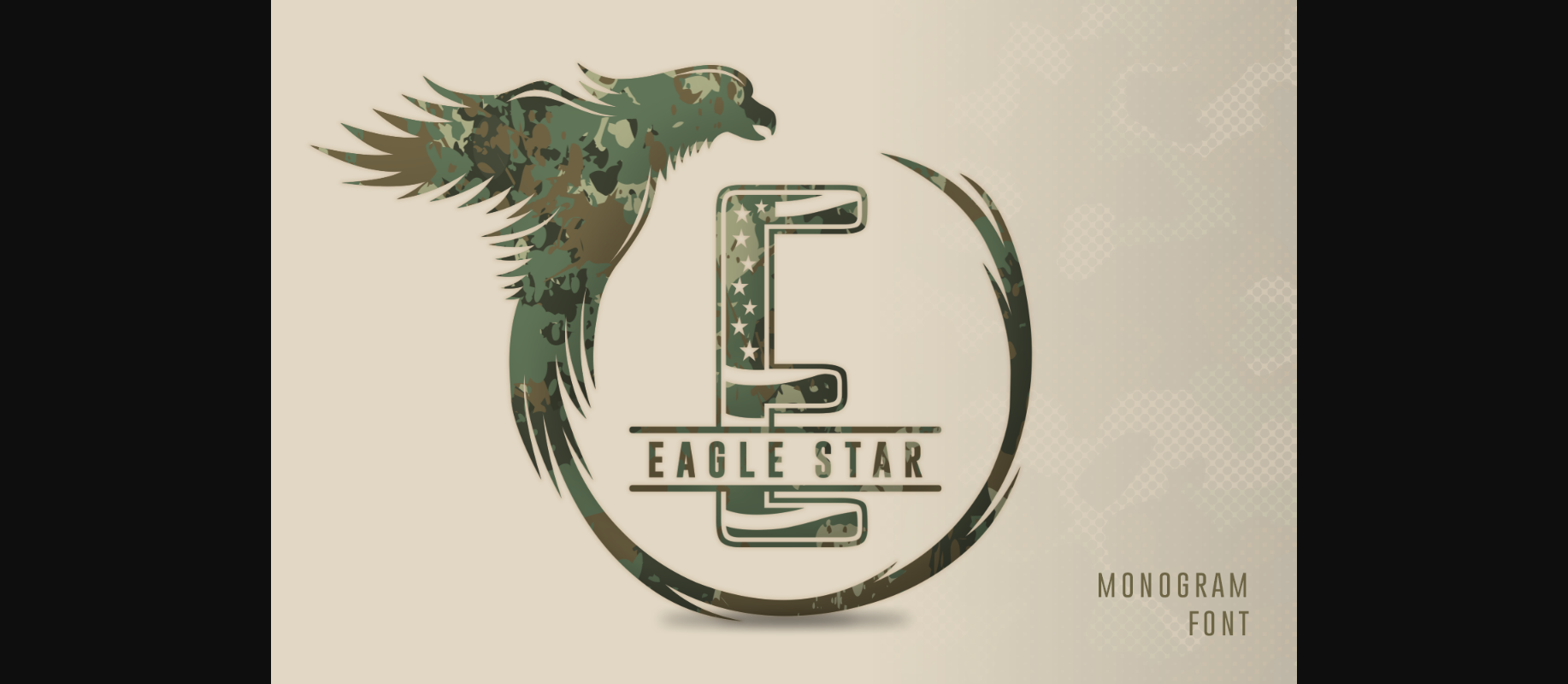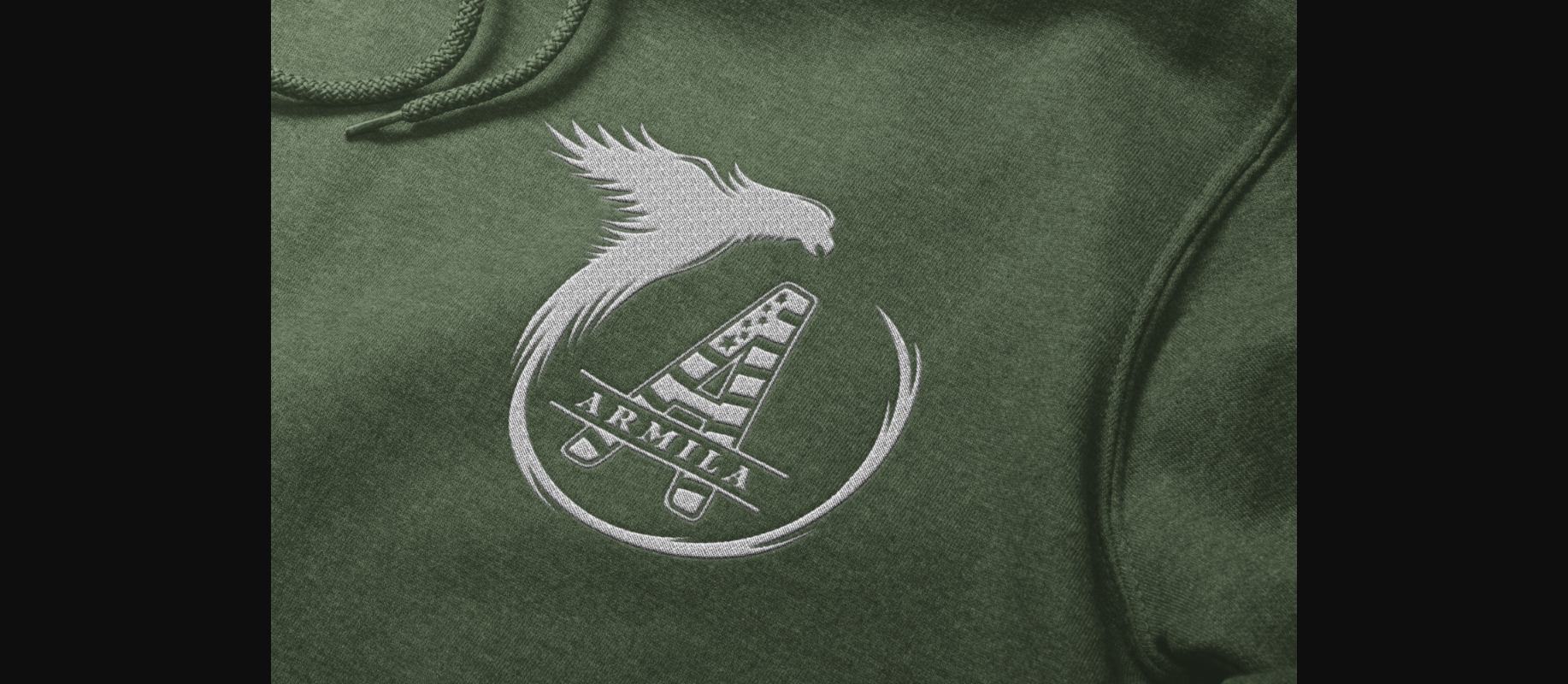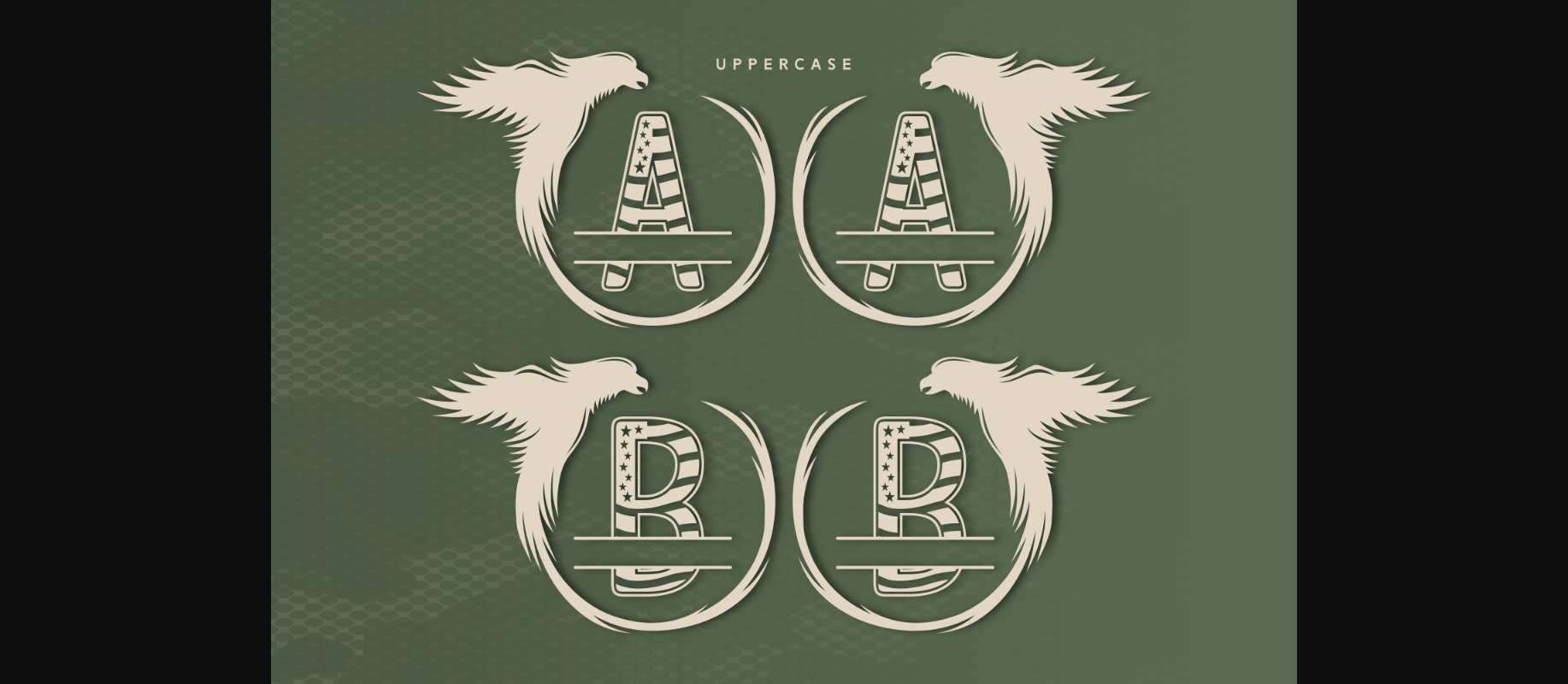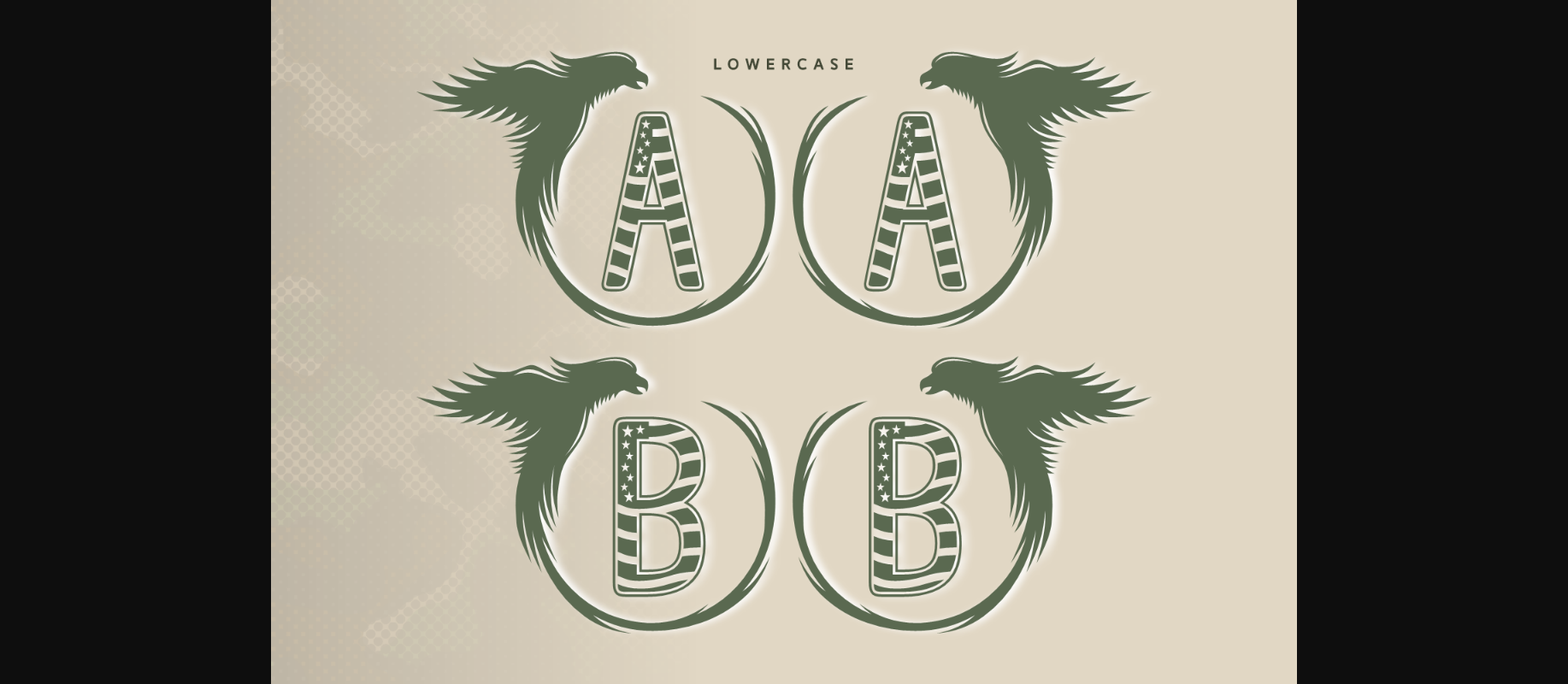
About Eagle Star Font
Eagle Star is a dainty and unique decorative font. Add this chic and lovely looking font to each of your letters, invitations or favorite design ideas, and you will be astounded by the outcome.